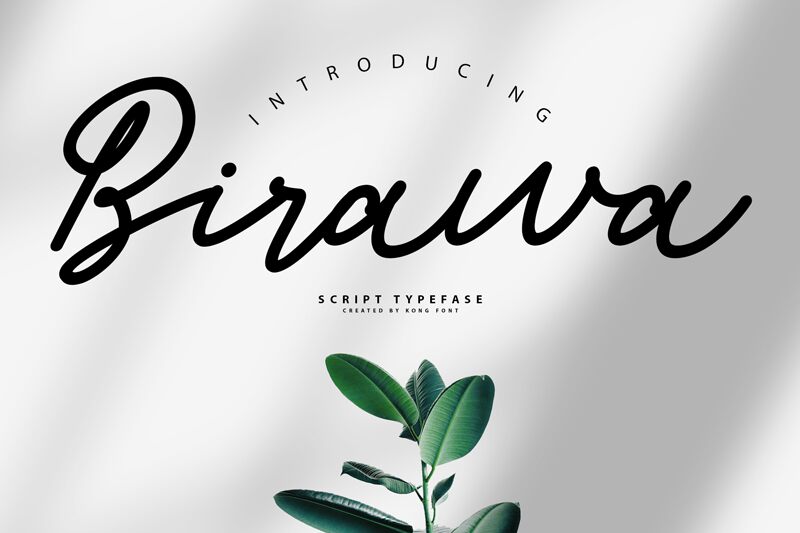
Birawa font family from Kong Font features two handwritten font styles. The free font presents an expressive modern experience with its elegant and fluid letterforms. Friendly yet stylish and artistic at the same time, this font showcases a dynamic and attractive visual that makes it very versatile for use with various applications. Whether used with an ornament or by itself, Birawa’s visual impact is inevitable.
Birawa is created to blend in beautifully with your packaging designs, event invitations and flyers, business cards, branding, and visual identity, as well as social media ads and special posts. If you’re an editor, the font is perfect for magazine covers, and it can also be used in scripting books, documentaries, or film posters.